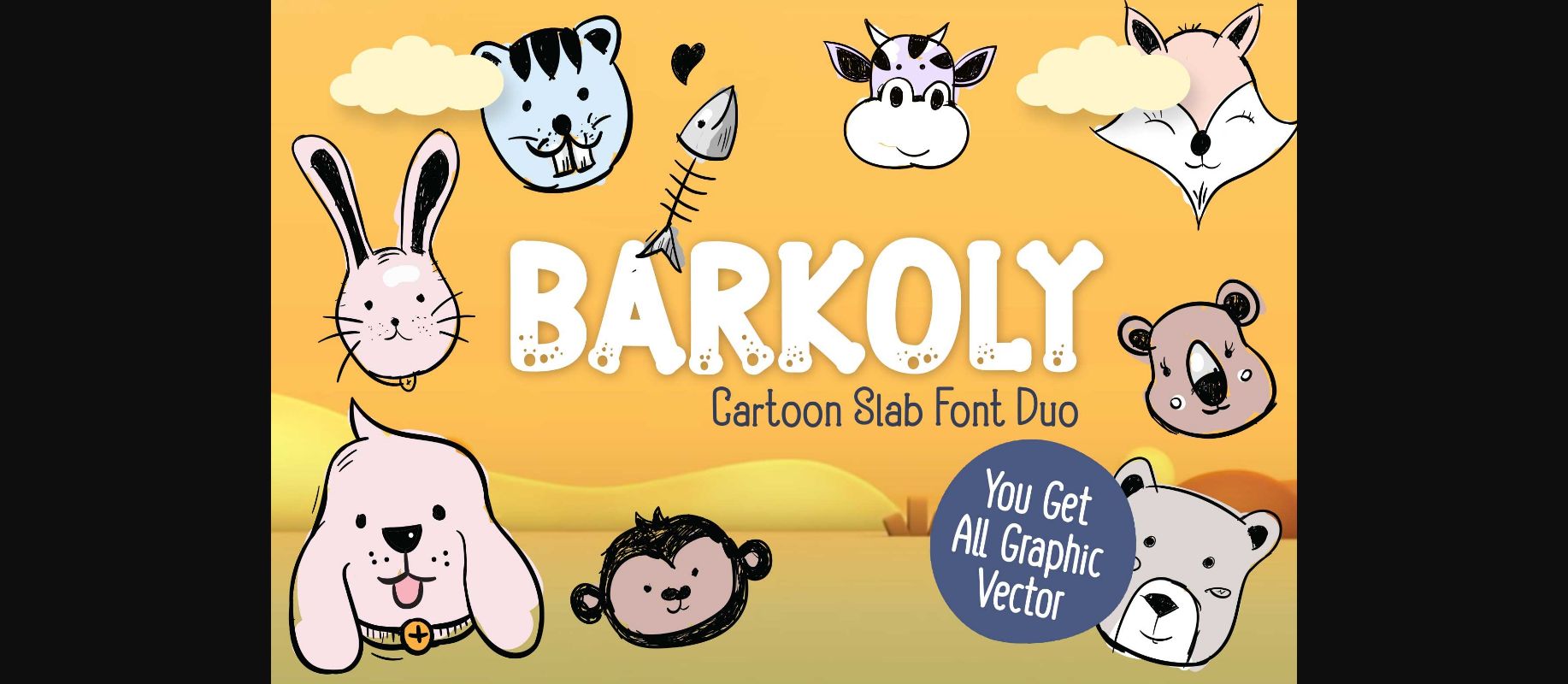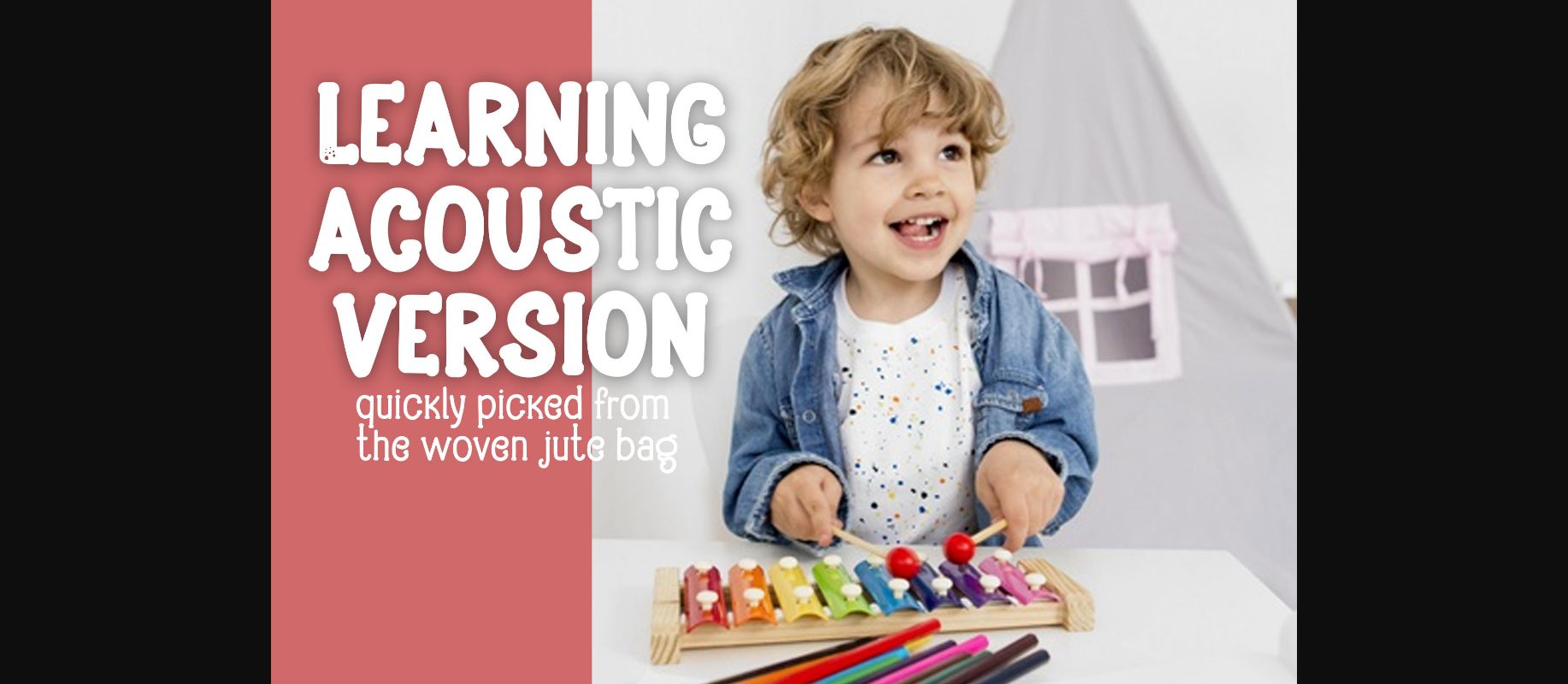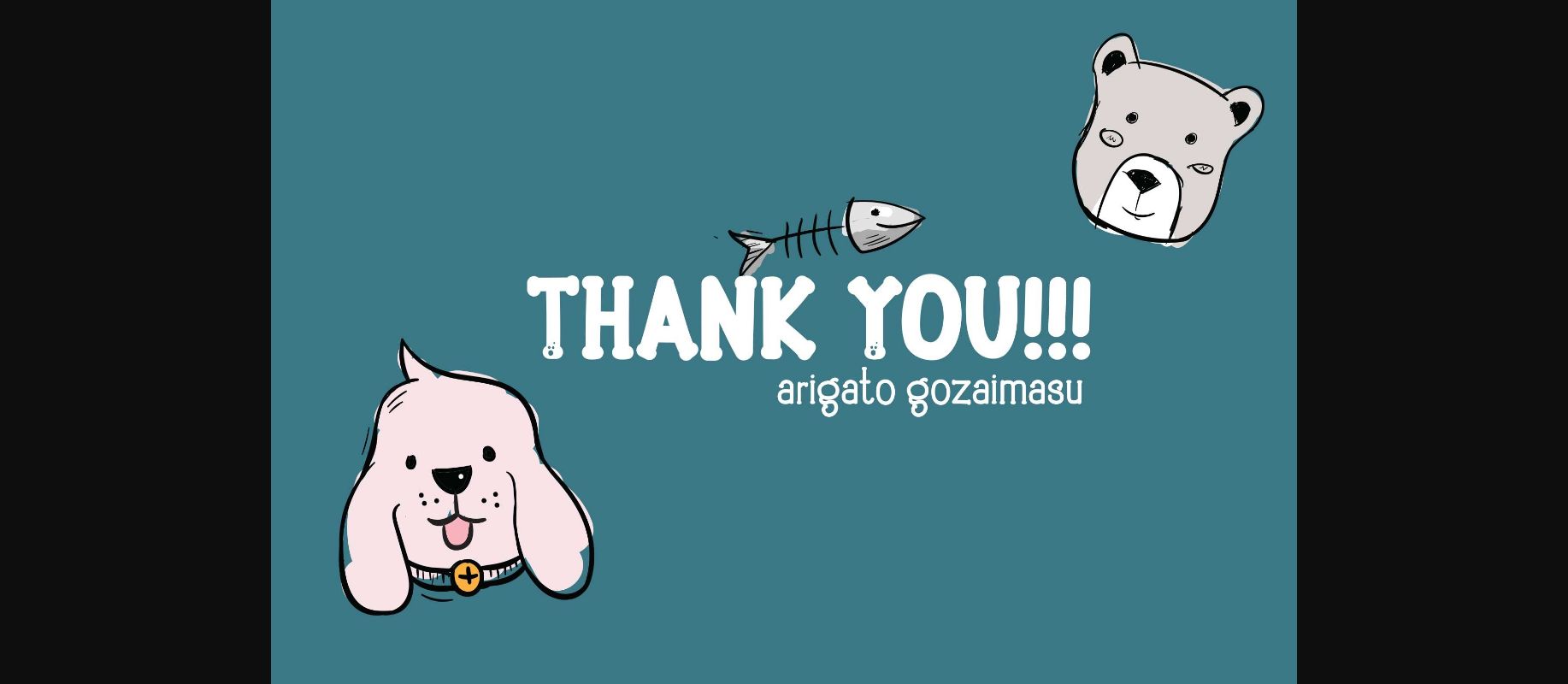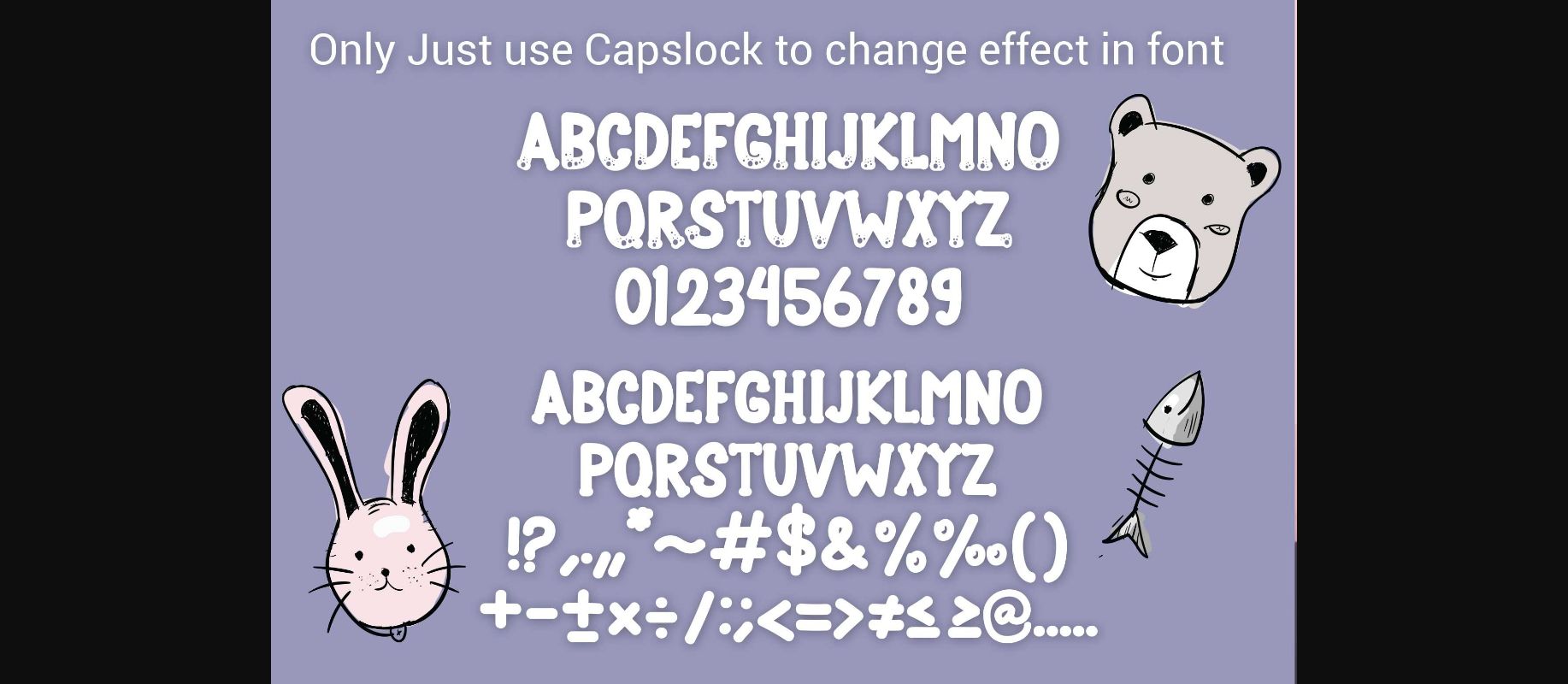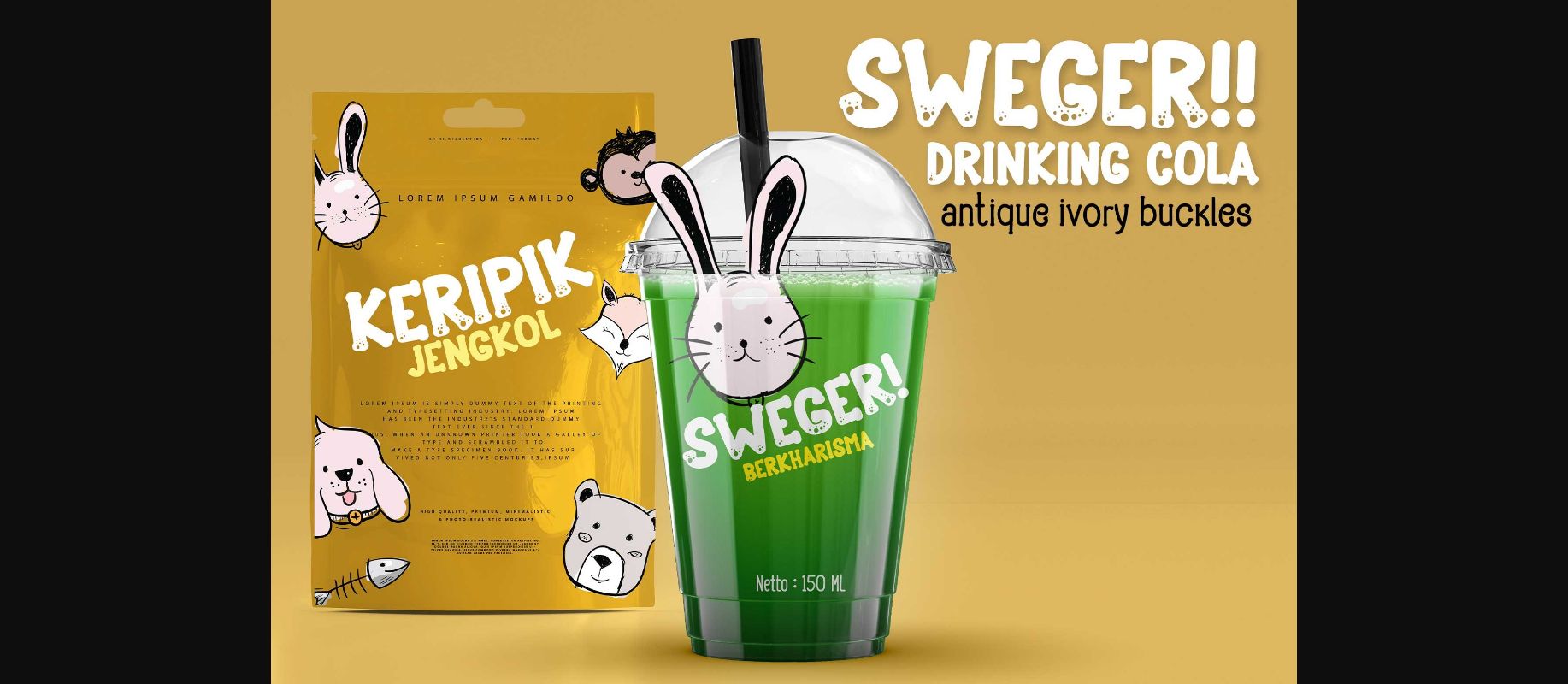
About Barkoly Font
Barkoly is a spectacular duo font (decorative and serif). Its dual nature makes this font incredibly fitting to a wide pool of designs, from children’s projects to book covers, magazines, and many others!